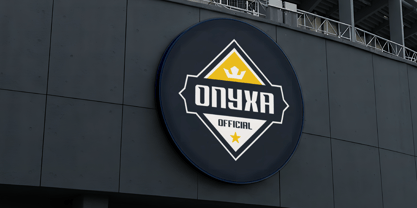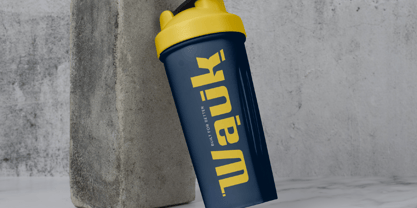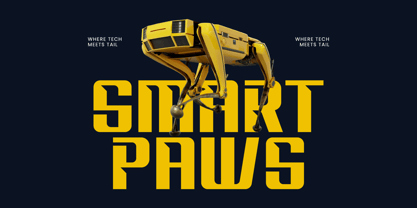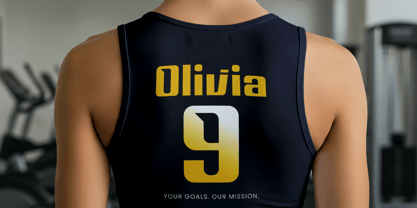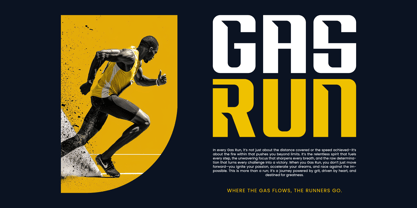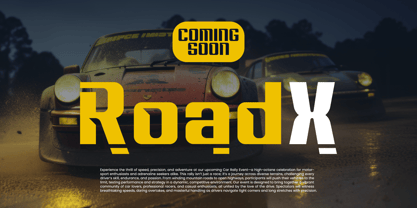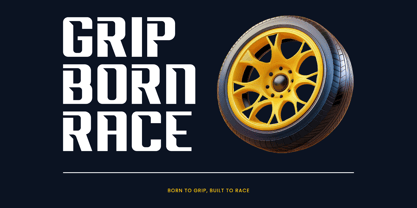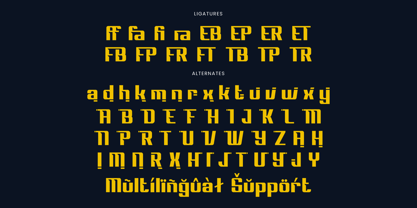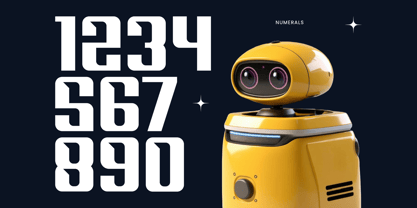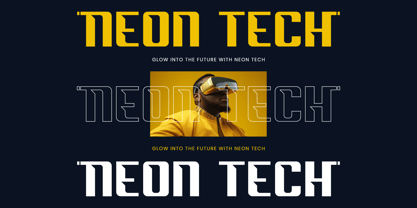
Drivery Enrich
by Timelesstype Studio
The Drivery Enrich Font Family was designed by Heru Utama Putra and published by Timelesstype Studio. Drivery Enrich contains 2 styles and family package options. More about this family
Drivery Enrich - Futuristic Sporty Font , Suitable for any projects such as: logos, branding projects, homeware designs, product packaging, mugs, quotes, posters, shopping bags, t-shirts, book covers, name card, invitation cards, greeting cards, label, photography, watermark, special events, and all your other luxury and beautiful projects that need a Luxury Serif taste.